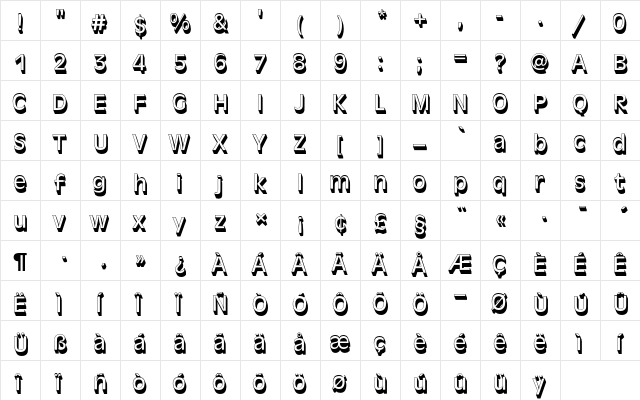
Antique Olive T Sh1 Regular Font Preview
Antique Olive T Sh1 Regular
Antique Olive T Sh1 Regular Font Details
Design Context for Antique Olive T Sh1 Typeface
Antique Olive T Sh1 has the warm character of retro typography — evoking diners, record sleeves, and the golden age of print advertising.
Perfect for vintage-inspired branding, retro packaging, nostalgia campaigns, and period-accurate editorial design.
Font Pairing: Combine Antique Olive T Sh1 with a simple slab or neutral sans — period-accurate companions reinforce the vintage feel without competing for attention.
Pro Tip: Use Antique Olive T Sh1 for headlines and pull quotes rather than body copy — its personality is best appreciated in short, focused bursts.